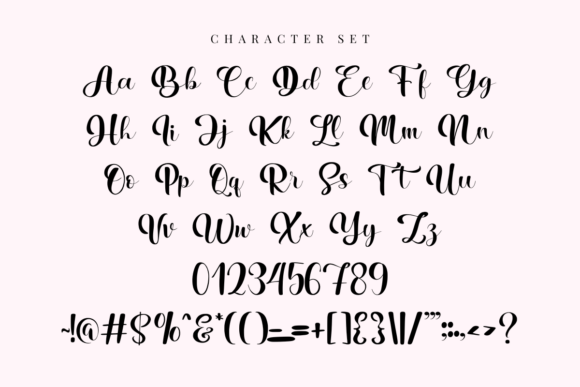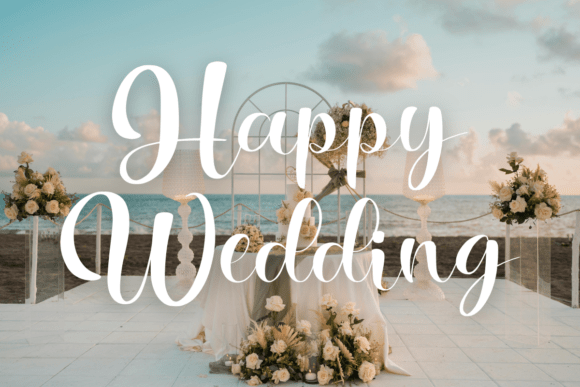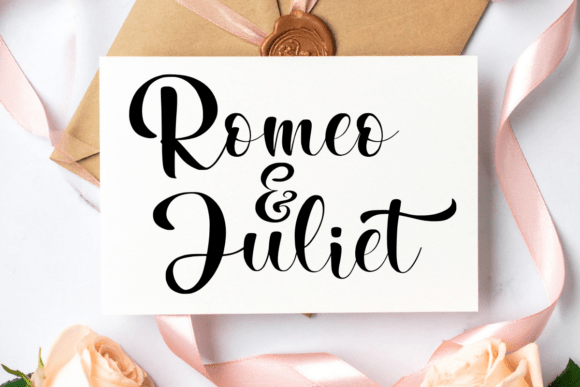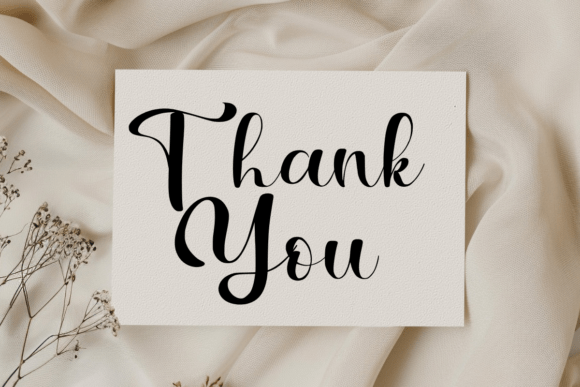
Introduction to Original Moment Font
Do you remember that moment when a blank page or screen sparks an idea for your next creative project? The excitement of bringing your vision to life can be exhilarating, and the right design resource can make all the difference. For designers seeking a touch of elegance and sophistication, the Original Moment Font is a game-changer. This exquisite script font is more than just a typeface – it’s a key to unlocking a world of high-quality design possibilities.
With its sophisticated flourishes and fluid strokes, the Original Moment Font perfectly captures the essence of high-end brush calligraphy. Whether you’re building a brand, designing a wedding suite, or crafting social media quotes, this font’s effortless flow and natural ligatures turn simple text into a timeless work of art. And the best part? Its versatility and technical precision make it a dream to work with, even for makers using Cricut or Silhouette machines.
- Features a clean and elegant design, perfect for use in logos, typography, and other visual elements.
- Unique characteristics include a modern and minimalist aesthetic, making it an excellent choice for designers seeking a fresh and creative look.
I recently had the chance to work with the Original Moment Font, and I’m excited to share my honest review. This font is perfect for any creative project that requires a high-quality, elegant touch.
- ✨ The font’s unique design and subtle nuances make it a great addition to any design project.
- ⚠️ The font may not be suitable for bold or headlines, as it’s designed for more subtle, elegant applications.
- ⚠️ Some users may find the font’s unique design style takes some getting used to.
Overall, I’m really impressed with the Original Moment Font. Its high quality, elegant design, and free download option make it a valuable addition to any design library. While it may not be suitable for every project, it’s a great choice for any creative project that requires a touch of sophistication and elegance.
The Original Moment Font is ideal for various creative projects, including:
- Marketing materials, such as brochures and flyers
- Graphic design and visual identity